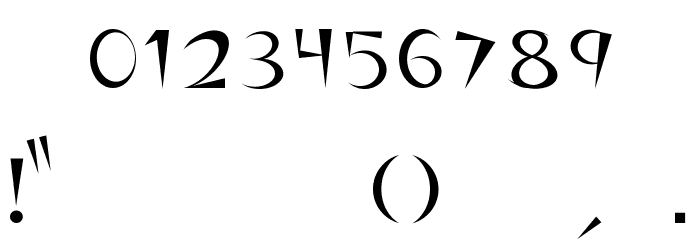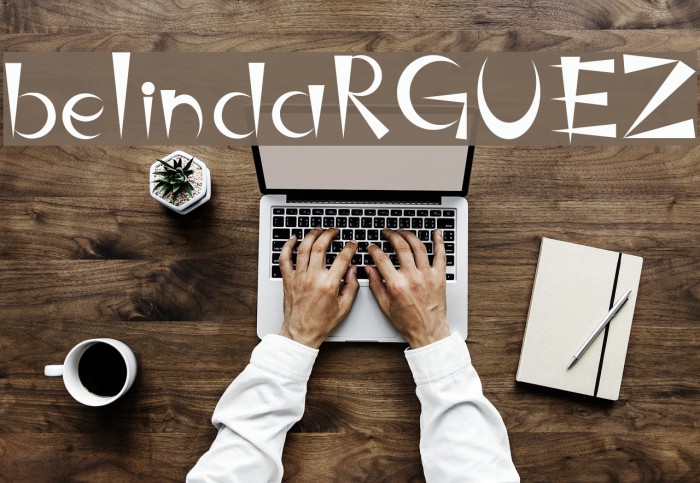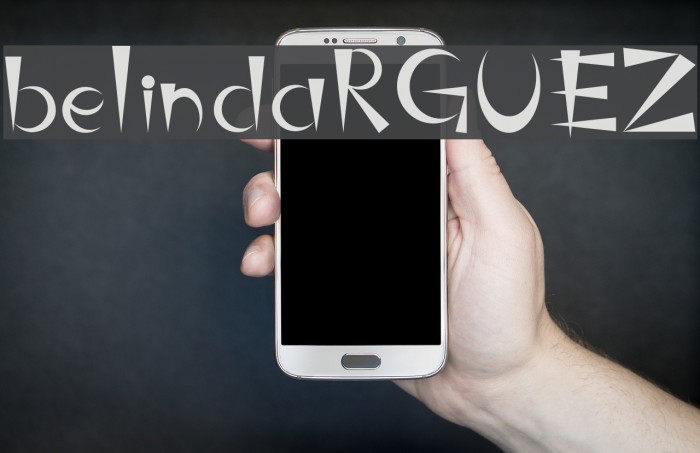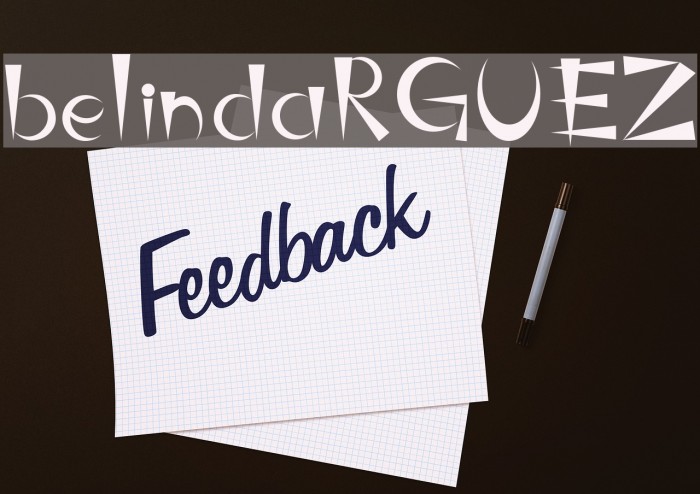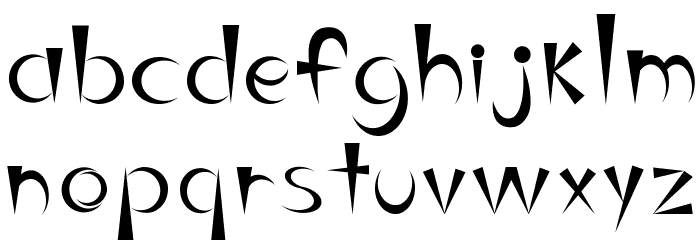
belindaRGUEZ Font
belindaRGUEZ Description
This font features a unique and artistic design with sharp, angular edges and a dynamic flow. The uppercase letters exhibit a bold and striking appearance, while the lowercase letters maintain a playful yet elegant style. The numerals are consistent with the overall theme, offering a cohesive look. Special characters are creatively integrated, adding to the font's distinctive personality. The combination of sharp angles and smooth curves creates a visually engaging experience, making it suitable for creative and expressive projects.
An artistic and dynamic font with sharp angles and smooth curves from Crazy fonts.